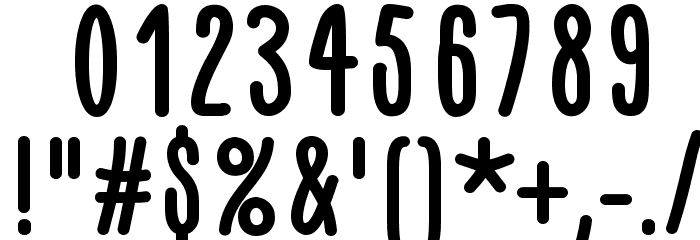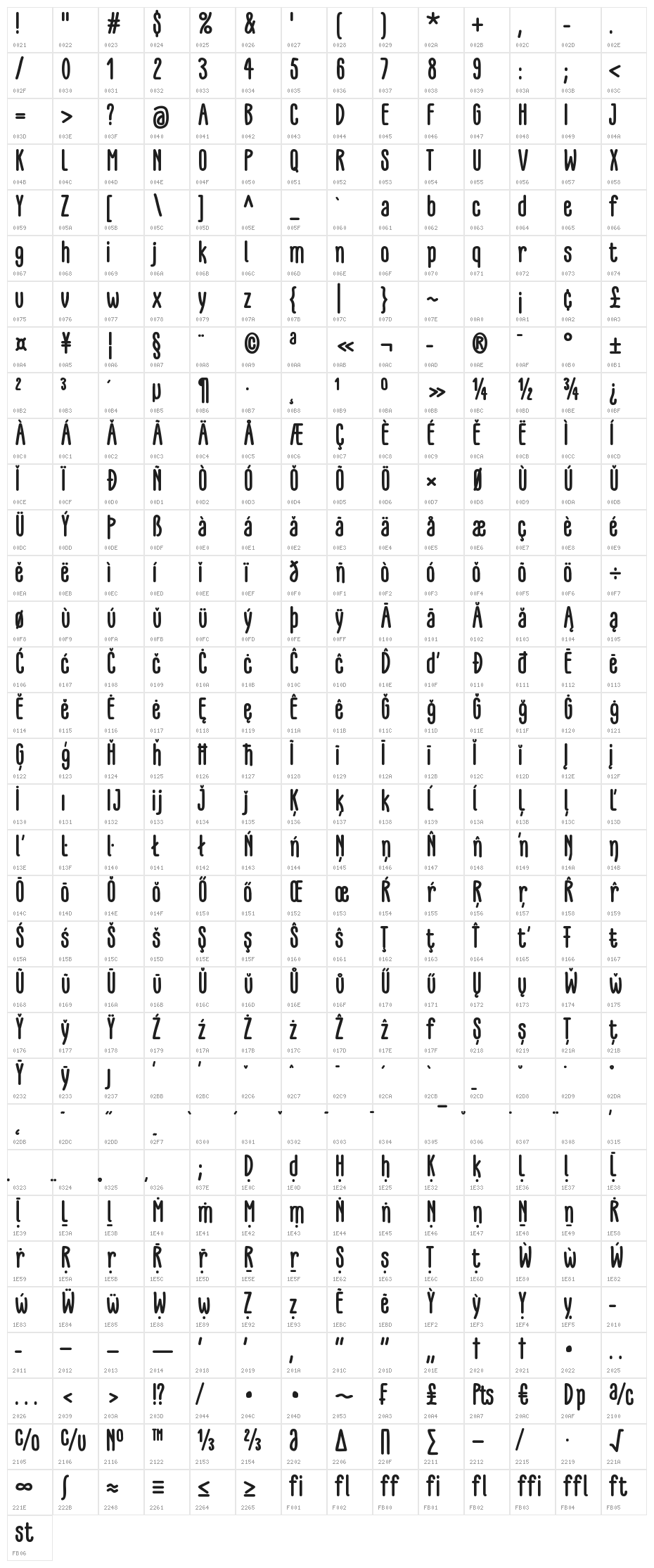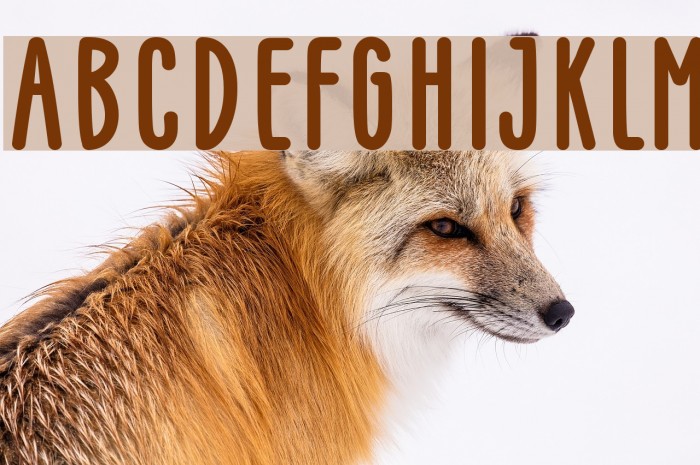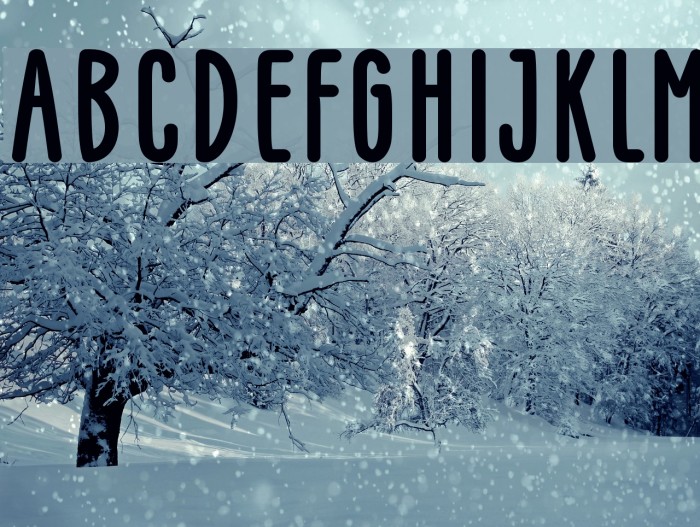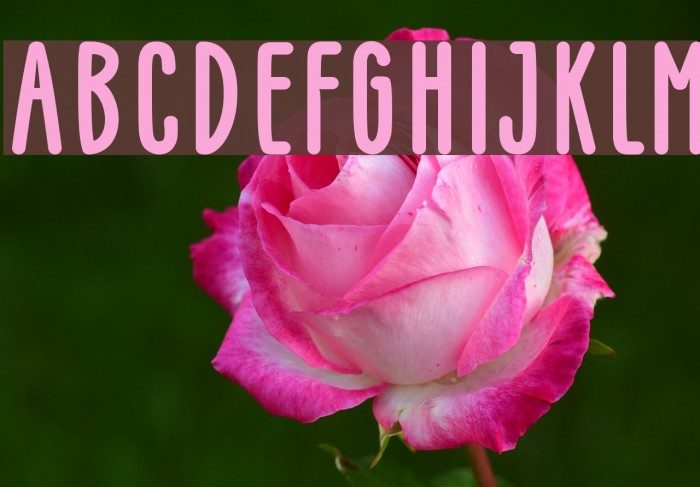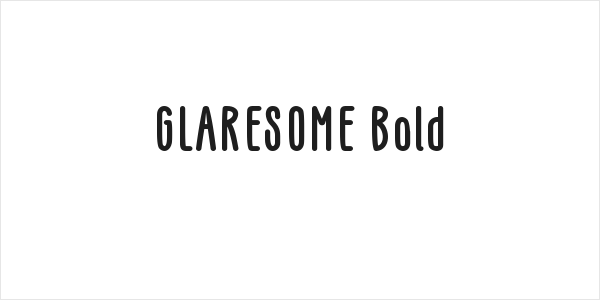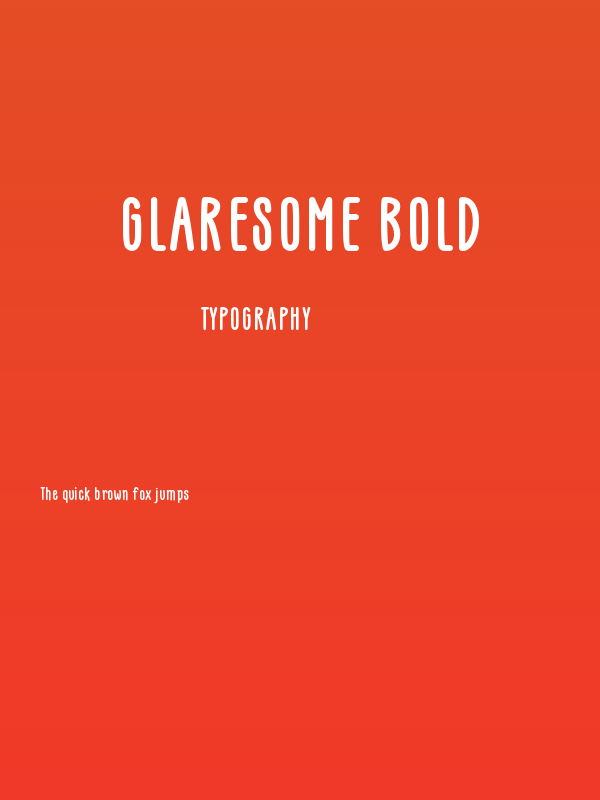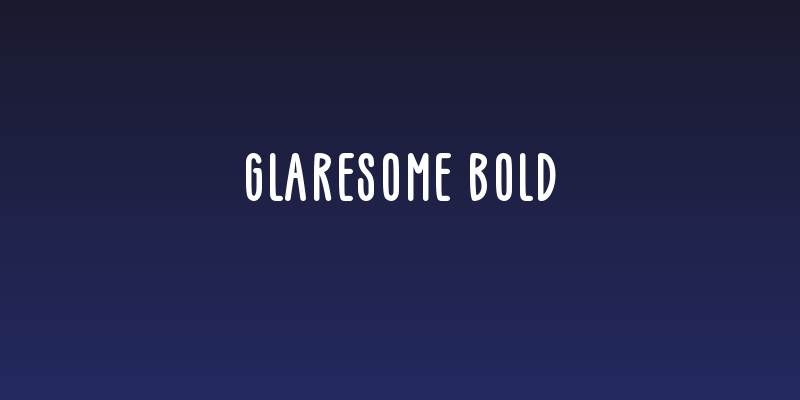
GLARESOME Bold Font
GLARESOME Bold Description
This font features a bold and playful design with rounded edges and a slightly condensed appearance. The characters are tall and narrow, giving it a unique and modern look. The uppercase and lowercase letters maintain a consistent style, with smooth curves and a friendly demeanor. The numbers and special characters are designed to match the overall aesthetic, making it versatile for various uses. The font's boldness ensures readability while adding a touch of fun and creativity to any project.
| Proposed Projects | Ideal for children's books, playful branding, posters, and creative digital content. |